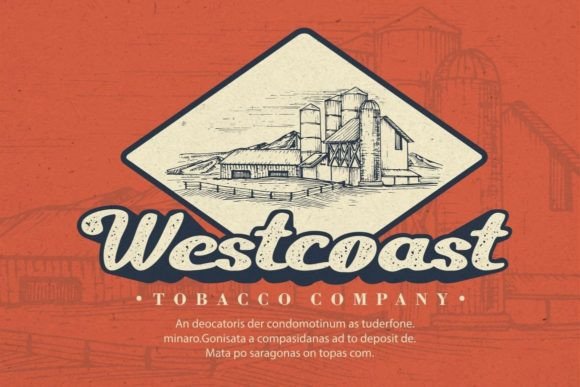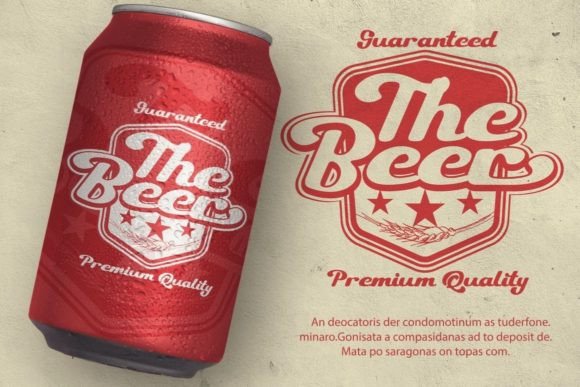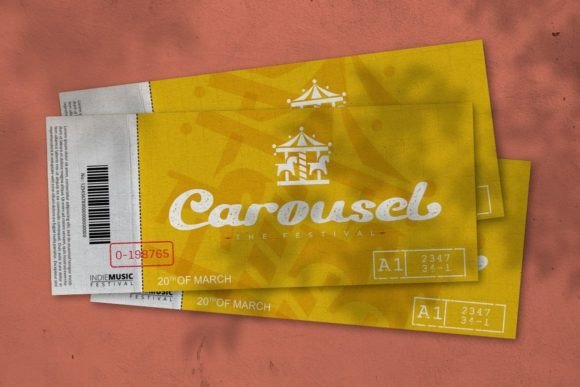
Introduction to Hostel Vintage Font
Introducing a new vintage font called β€œHostel Vintage.
β€œ Inspired by vintage typography and lettering in the 70s and 80s combined with bold typography style Hostel Vintage works best on a logotype, heading, cover, poster, logos, quotes, product packaging, header, merchandise, social media & greeting card, and many more items.